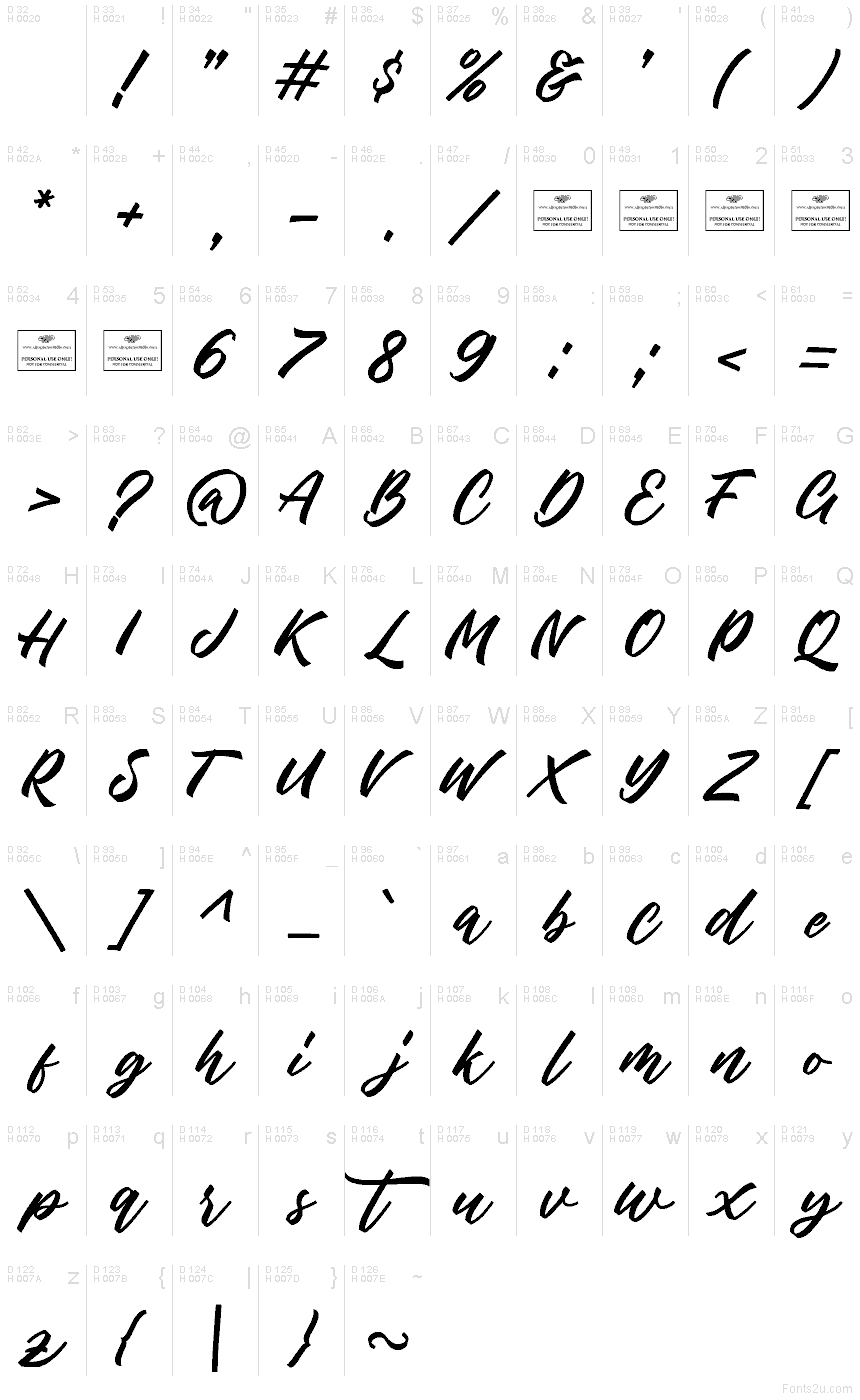
Streator
Streator font by Alpaprana Studio offers an elegant, flowing, and expressive handwritten style. Its modern calligraphy design exudes artistic flair, making it both sophisticated and graceful. This free handwritten font promises to bring a touch of elegance to your projects.
Perfect for wedding invitations, high-end product branding, elegant signage, logo design, packaging, website headers, greeting cards, social media posts, event posters, book covers.